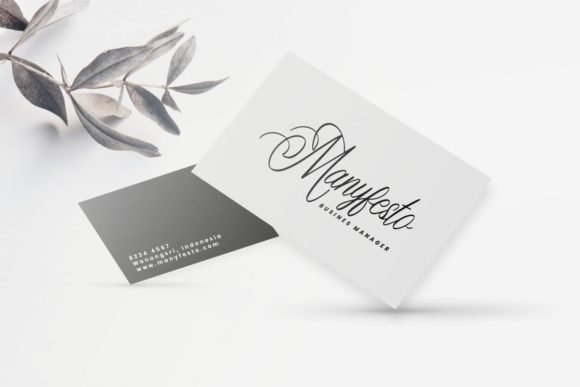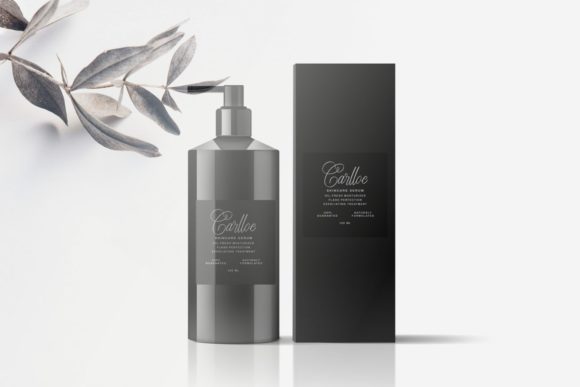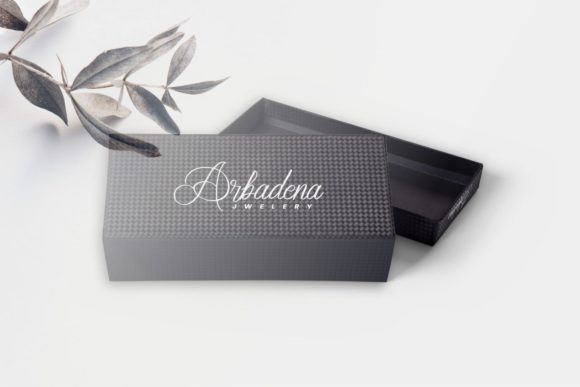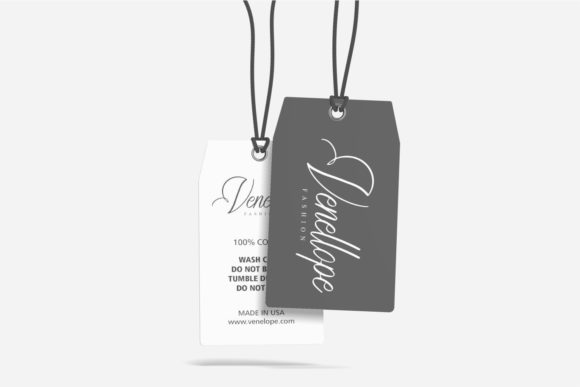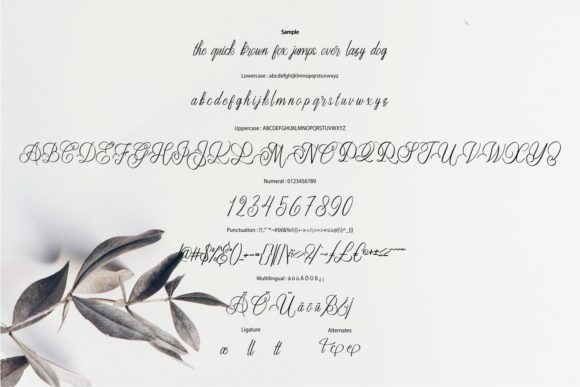
Discover the Charm of Carllote Font: Elevate Your Designs with Elegance
In the world of typography, few fonts manage to strike a balance between charm and elegance as effortlessly as the Carllote Font. This beautiful, handwritten typeface has captured the hearts of designers and crafters alike, and it’s easy to see why. With its unique blend of sophistication and whimsy, Carllote feels equally charming and elegant, making it the perfect addition to a wide range of design projects.
The Versatility of Carllote Font
One of the standout features of the Carllote Font is its incredible versatility. Whether you’re working on a wedding invitation, a thank you card, a quote, or a logo, this font is sure to add a touch of elegance and sophistication. Its handwritten feel is warm and inviting, making it perfect for designs that require a personal touch.
Here are just a few examples of the many design projects where Carllote Font can shine:
- Wedding Invitations: Add a touch of romance and whimsy to your wedding invitations with Carllote Font. Its elegant feel makes it perfect for formal weddings, while its charming side suits more casual, outdoor ceremonies.
- Thank You Cards: Show your appreciation in style with Carllote Font. Its warm, handwritten feel makes it perfect for thank you cards, whether you’re expressing gratitude to a friend, family member, or business associate.
- Quotes: Add a touch of elegance to your quotes with Carllote Font. Its beautiful, flowing script makes it perfect for inspirational quotes, love quotes, or any other type of quote that needs a special touch.
- Greeting Cards: From birthday cards to holiday cards, Carllote Font is the perfect choice for any type of greeting card. Its warm, inviting feel makes it perfect for personal and professional use.
- Logos: Add a touch of sophistication to your logo with Carllote Font. Its elegant feel makes it perfect for businesses that want to convey a sense of luxury, style, and refinement.
- Business Cards: Stand out from the crowd with Carllote Font on your business cards. Its unique blend of charm and elegance makes it perfect for entrepreneurs, freelancers, and small business owners.
Why Designers and Crafters Love Carllote Font
So, why has Carllote Font become a favorite among designers and crafters? Here are just a few reasons:
- Unique Style: Carllote Font has a unique, one-of-a-kind style that’s hard to find in other fonts. Its blend of charm and elegance makes it perfect for designers who want to add a special touch to their work.
- Ease of Use: Carllote Font is easy to use and pairs well with a wide range of other fonts. Its clear, flowing script makes it perfect for designs that require a lot of text.
- High-Quality Design: Carllote Font is designed to the highest standards, with careful attention to detail and a focus on aesthetics. Its high-quality design makes it perfect for professional use.
Tips for Using Carllote Font
Here are a few tips for getting the most out of Carllote Font:
- Pair it with Other Fonts: Carllote Font pairs well with a wide range of other fonts, from serif and sans serif fonts to script fonts and decorative fonts. Experiment with different pairings to find the one that works best for your design.
- Use it for Headings and Titles: Carllote Font is perfect for headings and titles, where its elegant feel can really shine. Use it to add a touch of sophistication to your design.
- Experiment with Colors: Carllote Font looks great in a wide range of colors, from classic black and white to bold, bright colors. Experiment with different colors to find the one that works best for your design.
In conclusion, Carllote Font is a beautiful, elegant typeface that’s perfect for designers and crafters who want to add a touch of charm and sophistication to their work. Its versatility, unique style, and high-quality design make it a great choice for a wide range of design projects, from wedding invitations and thank you cards to logos and business cards. So why not give Carllote Font a try and see the difference it can make in your designs?